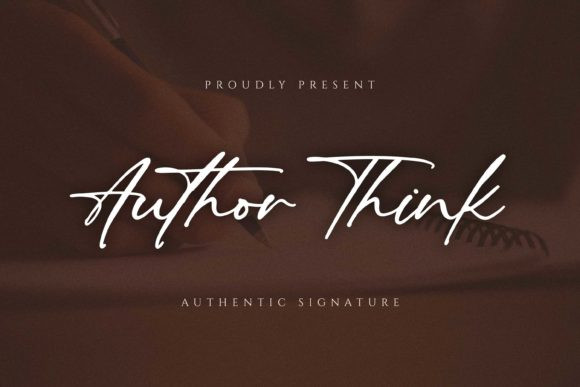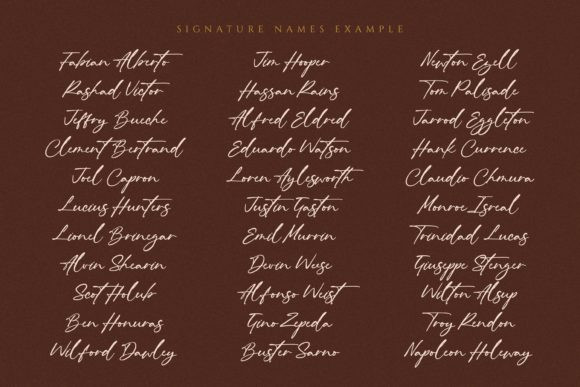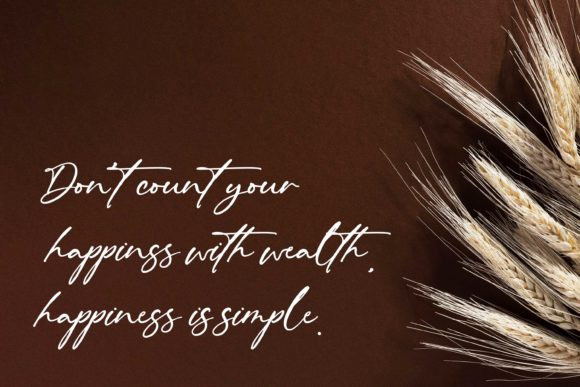
Author Think Font
Author Think is an elegant script font, that features a very delicate and classy look. Not too thin and not too thick, balanced and varied, this font was designed to enhance the beauty of your projects.